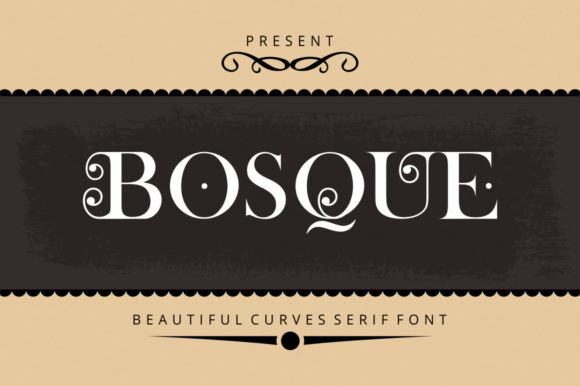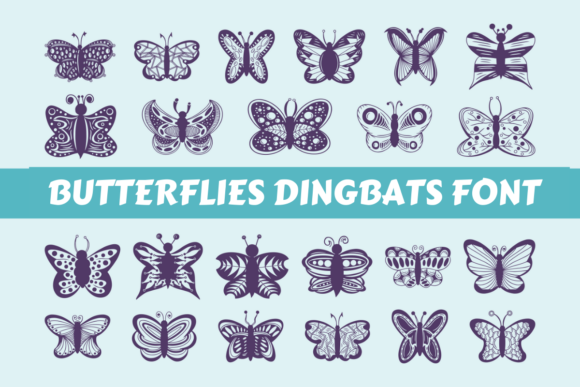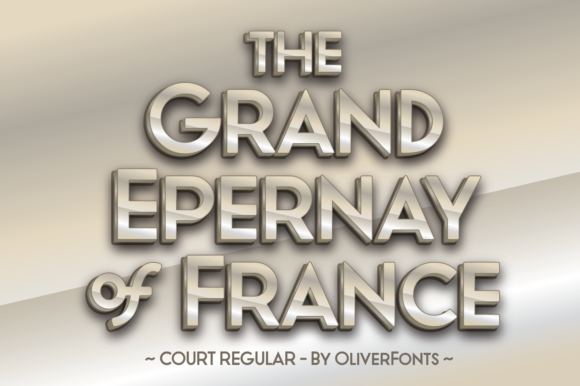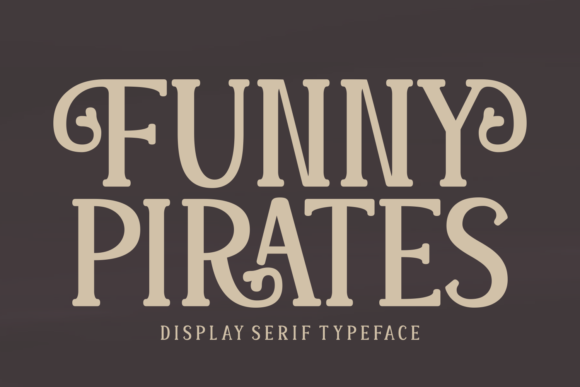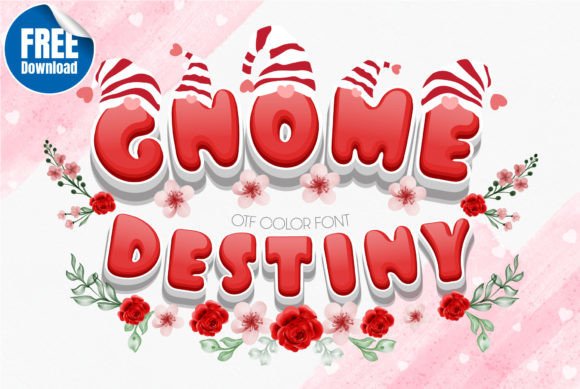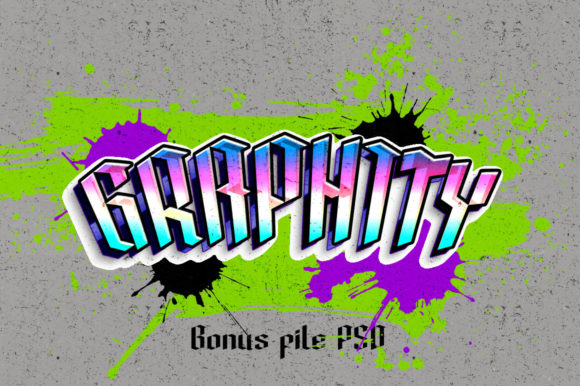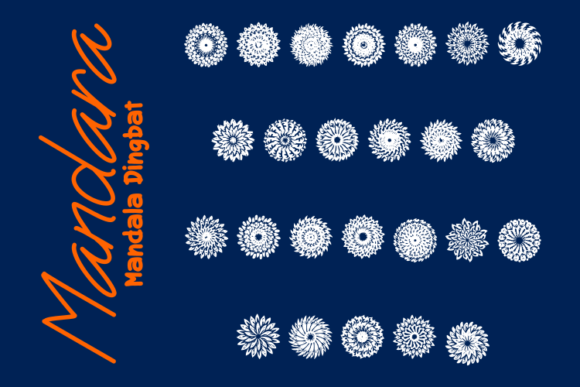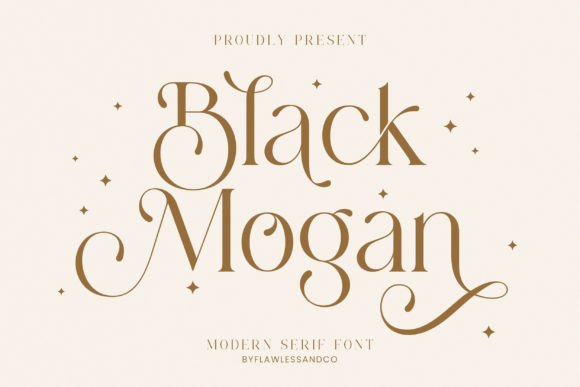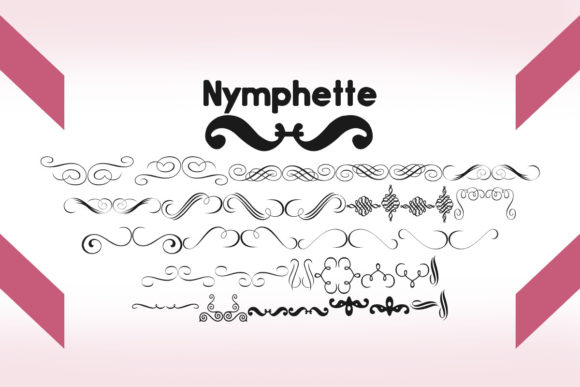
Free Dingbats & Blackletter Fonts: 10 Specialty Picks (2026)
Free dingbats fonts and blackletter faces solve a narrower problem than a headline script: instead of setting a mood with words, dingbats drop in ready-made icons, while blackletter and specialty serif or sans serif styles bring a very specific, less common personality most font libraries are short on. Here are 10 free dingbats, blackletter, sans serif, serif, and color font picks worth adding to your library.
Quick Picks
Best Dingbats Bloem – a botanical wildflower icon set for cards and packaging
Best Blackletter Fifteenth Century – an authentic, bold gothic blackletter face
Best Sans Serif Bosque – a lettered sans serif with fantastic swashes and ornaments
Most Unique Gnome Destiny – a sweet color font for children’s and school projects
What Makes This List Different
Dingbats, blackletter, and color fonts are niche by design, which is exactly why free dingbats fonts and blackletter faces are worth stocking up on when you find good ones. Dingbats fonts replace letters with icons entirely, so a few keystrokes drop in a wildflower or mandala graphic without any illustration work. Blackletter fonts bring a gothic, old-world weight that’s hard to fake with a regular typeface. Color fonts (OpenType-SVG) render in full color inside supporting software like Photoshop, Illustrator, and Silhouette, but check compatibility notes before pairing one with a cutting machine like Cricut. Because this style of free dingbats font rarely shows up in generic roundups, this is a genuinely low-competition category to explore.
1. Bosque
Best for: General Design
Bosque is a gorgeously lettered sans serif with fantastic swashes and ornaments. It will look sophisticated on a wide range of design projects!
2. Butterflies
Best for: General Design
Butterflies is a lovely and whimsical dingbats font. It looks incredibly well on a variety of designs that require a sweet and bright touch.
3. Black Mogan
Best for: Logos & Branding, Apparel & Merch
Mogan is a modern serif, with some alternates and ligatures that are perfect for branding materials, t-shirts, logos, posters, photography, quotes, and many more.
4. Funny Pirates
Best for: General Design
Funny Pirates is a chic, charming and assertive serif font.
5. Gnome Destiny
Best for: Kids’ Projects, School & Classroom
Gnome Destiny is a fun, cute and incredibly sweet color font. It works incredibly well on designs that are destined to children or school projects.Note!
6. Isometric
Best for: General Design
Isometric is a cool, bold and thick lettered blackletter font.
7. Court
Best for: General Design
Court is a strong, all caps sans serif font with a retro feel.
8. Mandara
Best for: General Design
Mandara is an incredibly cool dingbats font with an original, decorative purpose. Add these handmade mandala designs to your creations and enhance your artistic side.
9. Fifteenth Century
Best for: General Design
Fifteenth Century is an incredibly authentic and bold blackletter font. This original look will appeal to a wide range of crafty ideas, from letterheads and titles, to stationery.
10. Nymphette
Best for: General Design
A stunning collection of delicate symbols. Nymphette is a useful and delicate dingbats font.
What is a blackletter font used for?
Blackletter fonts carry a gothic, medieval weight, often used for tattoo lettering, metal band branding, certificates, and any design that wants an old-world, authoritative feel.